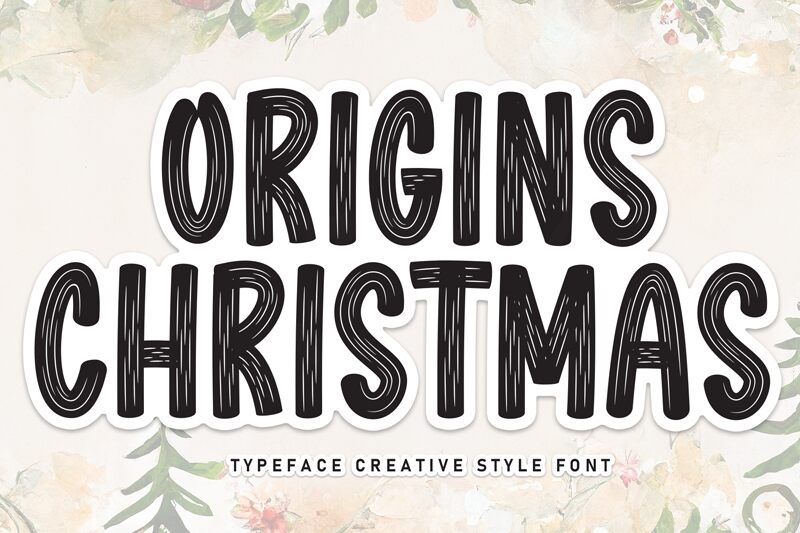
Origins Christmas
Origins Christmas font by Scratchones is a condensed display typeface with decorative detailing for extra character. Its vintage-like textured appearance creates an instant retro charm that guarantees great visual appeal in projects. The ornate patterns which adorn each letter add a handcrafted feel to the design thanks to the signature addition of paintbrush-like strokes and other handcrafted imperfections.
Free to download, this display font will magnificently ornament everything from product packages to billboards, branding designs, logos, book covers, vintage merchandise labels as well as posters and social media posts during different holidays especially Christmas.